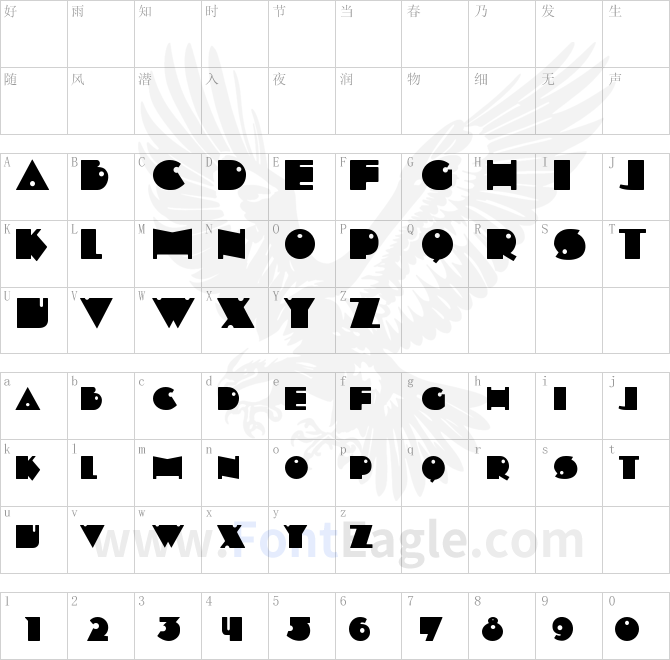
- Font name:Independant – Small Caps
- Font Full Name:Independant – Small Caps
- Font Copyright:© Phynette & Apostrophic Laboratories. All rights reserved. Revived from early 1930s European signage type made by Collette & Dufour for Maison de Plantin in Belgium.